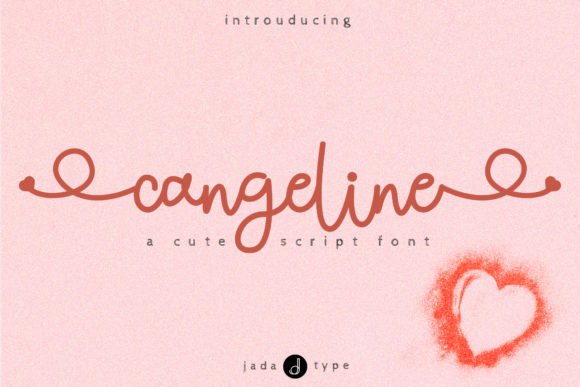
The Perfect Touch for Your Designs
You know that feeling when you’re brainstorming ideas and the perfect font just clicks? It’s like the whole project comes alive! That’s exactly what happens when you add the Cangeline Font to your design. This beautiful, handwritten font is the perfect addition to any creative project, adding a touch of joy and personality to your work.
The Cangeline Font is designed to make your designs stand out, with its minimal and lovely style. Whether you’re working on a logo, poster, or social media graphic, this font is sure to add a unique touch. Plus, with its PUA encoding, you can access all of the glyphs and swashes with ease, giving you even more creative possibilities.
As a designer, you know how valuable it is to have a reliable and versatile font in your toolkit. The Cangeline Font is just that, offering a range of styles and options to suit any project. So why not give it a try and see how it can elevate your designs?
Cangeline Font Key Features
- Font Family: Cangeline Font is a unique and elegant font family designed for various applications.
- Character Set: Supports a wide range of languages, including Latin, Cyrillic, and Greek alphabets, making it a versatile choice for global applications.
- Unique Characteristics: Features a distinctive cursive script with a modern twist, making it perfect for creative projects, invitations, and wedding designs.
Cangeline Font Review
Cangeline Font is a beautiful, elegant script font that is perfect for creating a sense of luxury and sophistication. The font’s flowing lines and subtle flair make it a great choice for wedding invitations, branding materials, and any other design where you want to convey a sense of high-end style. ✨
One of the standout features of Cangeline Font is its versatility. It works well in both digital and print applications, and can be used in a variety of contexts, from formal events to more casual, creative projects. ✨
- ⚠️ The font may be too ornate for some designs, and can be difficult to read in certain contexts.
- ⚠️ Some users have reported issues with the font’s kerning, particularly in longer lines of text.
- ⚠️ The font is not suitable for body text, and is best used for headings and titles.
Overall, I would say that Cangeline Font is a beautiful and effective choice for designers who want to add a touch of luxury to their projects. While it may have some limitations, its unique style and versatility make it a valuable addition to any design toolkit. With careful use, Cangeline Font can add a level of sophistication and elegance to even the most mundane designs. ✨
Tips: Use Cangeline for headings and titles to add a touch of elegance to your designs. Experiment with different font sizes and colors to create visual interest.
Tips: Use Cangeline for custom typography projects or to add a unique touch to your designs. Experiment with layer styles and effects to enhance the font’s appearance.
Tips: Use Cangeline for presentations or reports to add a touch of sophistication. Experiment with different font sizes and colors to create visual interest.
The Cangeline font is ideal for:
– Custom typography projects
– Elegant headings and titles
– Sophisticated presentations and reports